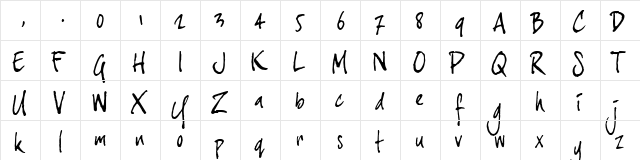
joeHand 3 Regular
| Foundry | J O E B O B graphics 2006 |
| Designer | J O E B O B graphics / Joe van der Ham |
Design Context for joeHand 3 Typeface
joeHand 3 brings a calligraphic fluidity to the page — its connecting strokes and expressive curves give it an unmistakably human quality.